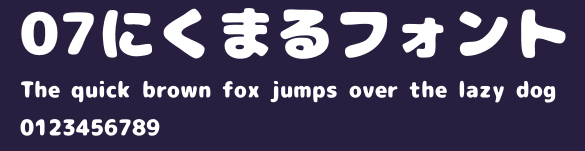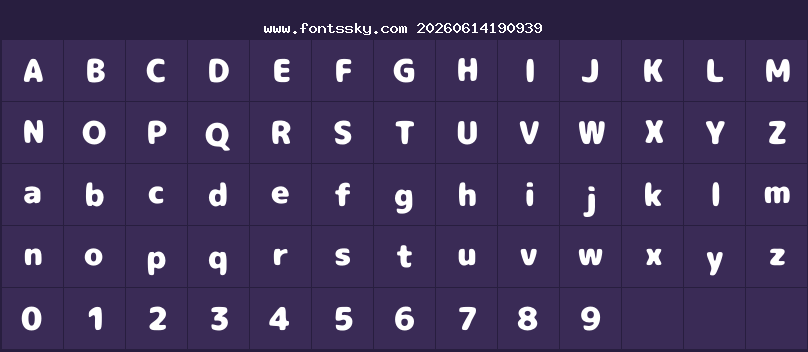
07にくまるフォント Preview
• Font Name: 07にくまるフォント
• Full Font Name: 07にくまるフォント
• PostScript Name: 07NikumaruFont
About 07にくまるフォント.otf
07にくまるフォント.otf is a modern, elegant sans-serif font designed for ultimate readability and visual harmony. Perfect for branding, headlines, web design, and print materials.